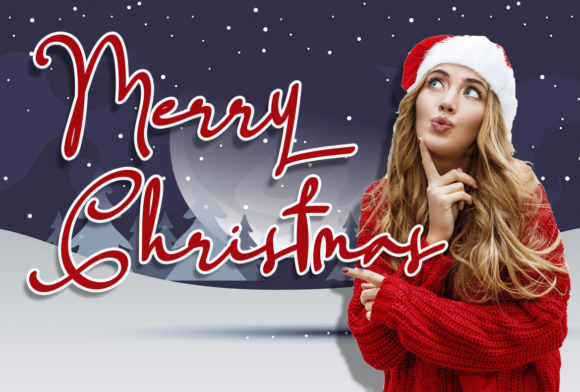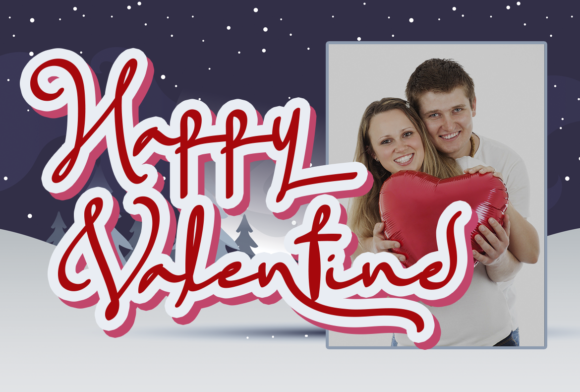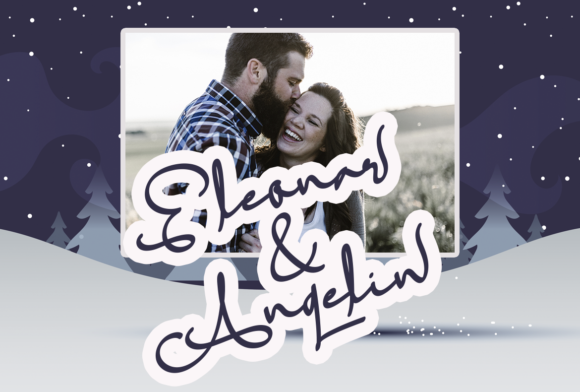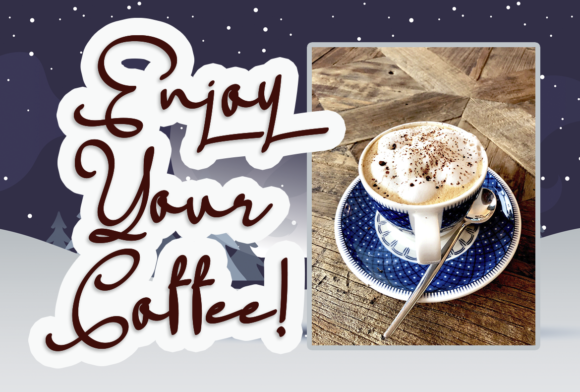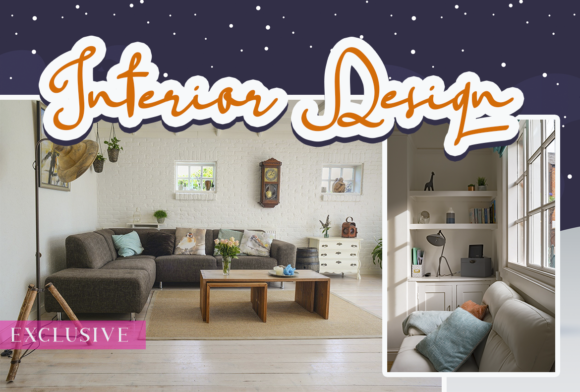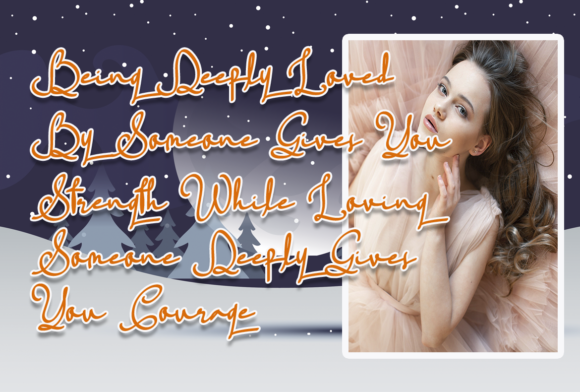
Introducing Father Christmas Font: The Perfect Elegant Script for Your Projects
Are you looking for a font that exudes elegance and sophistication? Look no further than the Father Christmas Font. This beautiful script font is designed to add a touch of class and refinement to any project, making it perfect for designers and crafters alike. In this article, we’ll take a closer look at the Father Christmas Font, its features, and how you can use it to elevate your designs.
What is Father Christmas Font?
Father Christmas Font is an elegant script font that features a delicate and classy look. It’s not too thin and not too thick, making it a perfectly balanced font that’s both refined and legible. The font’s varied strokes and flourishes add a touch of sophistication, making it ideal for a wide range of projects, from wedding invitations and greeting cards to branding and packaging.
Key Features of Father Christmas Font
- Elegant Script Design: Father Christmas Font features a beautiful, flowing script design that’s perfect for adding a touch of elegance to your projects.
- Balanced Strokes: The font’s strokes are perfectly balanced, not too thin and not too thick, making it easy to read and understand.
- Varied Flourishes: The font’s varied flourishes and swashes add a touch of sophistication and refinement, making it perfect for high-end designs.
- Legibility: Despite its elegant design, Father Christmas Font is highly legible, making it perfect for body text and headings.
Who is Father Christmas Font for?
Father Christmas Font is perfect for designers and crafters who want to add a touch of elegance and sophistication to their projects. Whether you’re designing wedding invitations, greeting cards, or branding materials, this font is sure to impress. Here are some examples of projects that Father Christmas Font is well-suited for:
- Branding and packaging materials
- Digital and print media
How to Use Father Christmas Font
Using Father Christmas Font is easy. Here are some tips to get you started:
- Pair it with a sans-serif font: Pair Father Christmas Font with a sans-serif font, such as Arial or Helvetica, to create a beautiful contrast.
- Use it for headings and titles: Use Father Christmas Font for headings and titles to add a touch of elegance and sophistication.
- Experiment with flourishes: Experiment with the font’s flourishes and swashes to add a touch of personality to your designs.
In conclusion, Father Christmas Font is a beautiful, elegant script font that’s perfect for designers and crafters who want to add a touch of sophistication to their projects. With its balanced strokes, varied flourishes, and high legibility, this font is sure to impress. Whether you’re designing wedding invitations, greeting cards, or branding materials, Father Christmas Font is a great choice. So why not give it a try and see how it can elevate your designs?